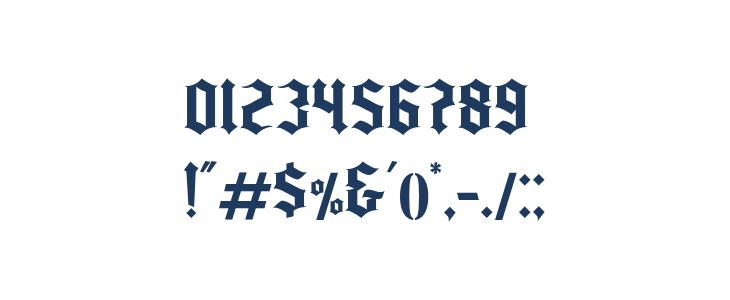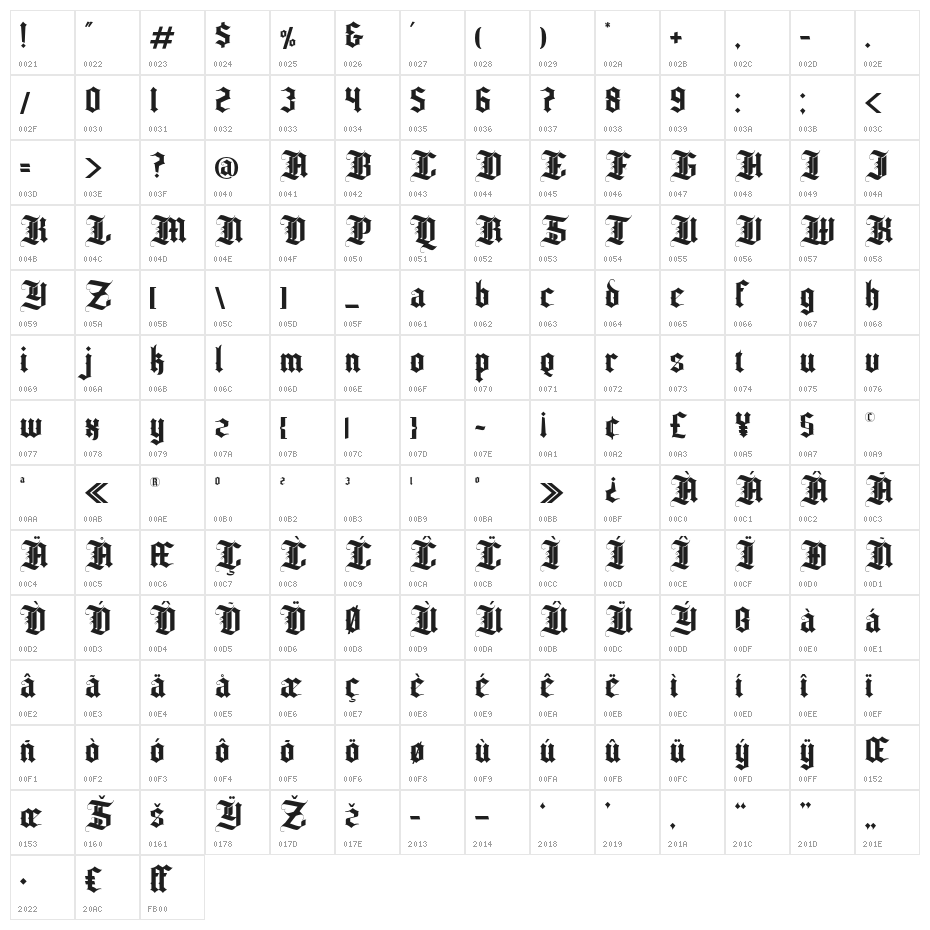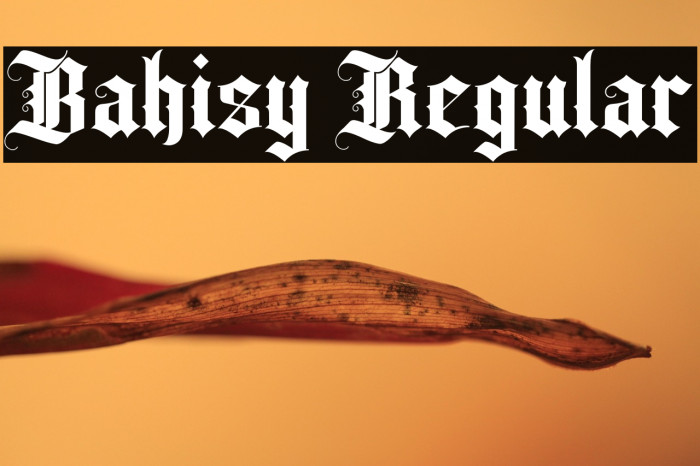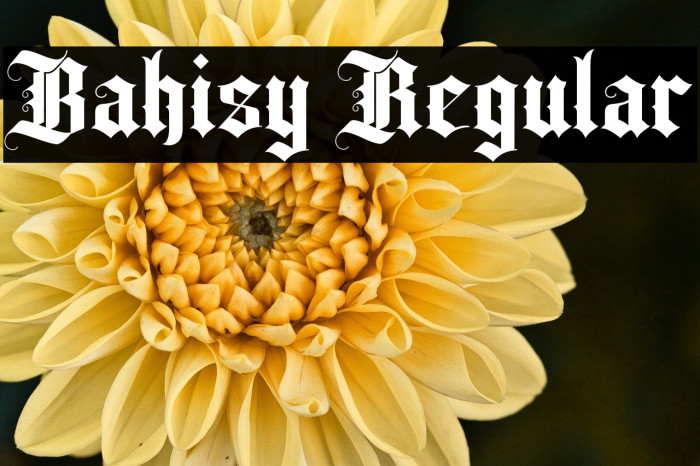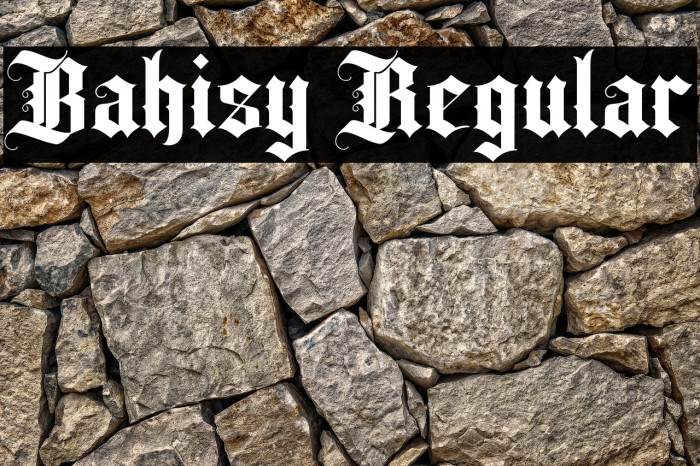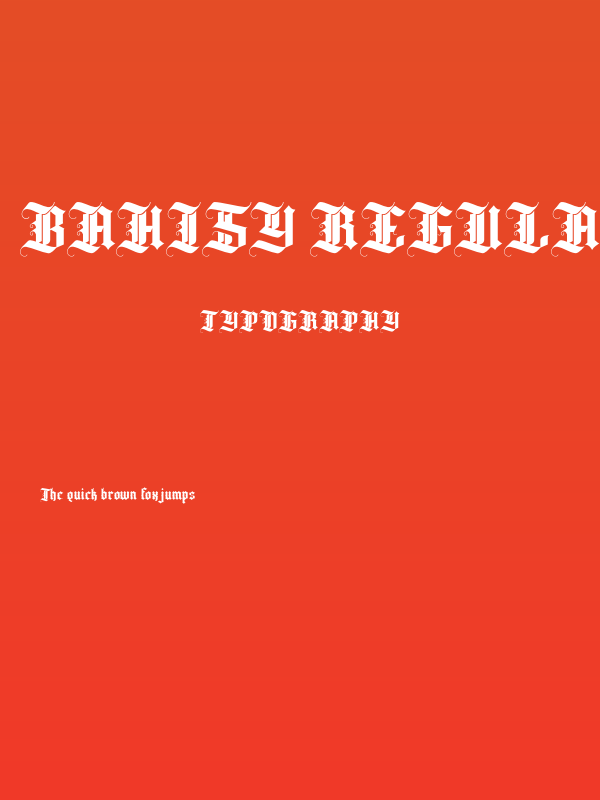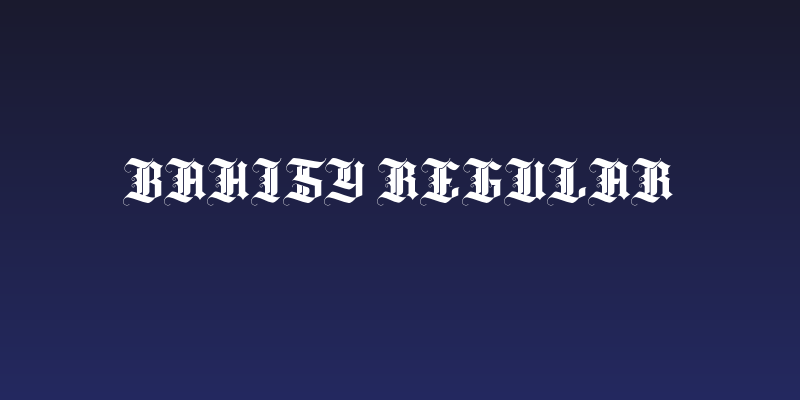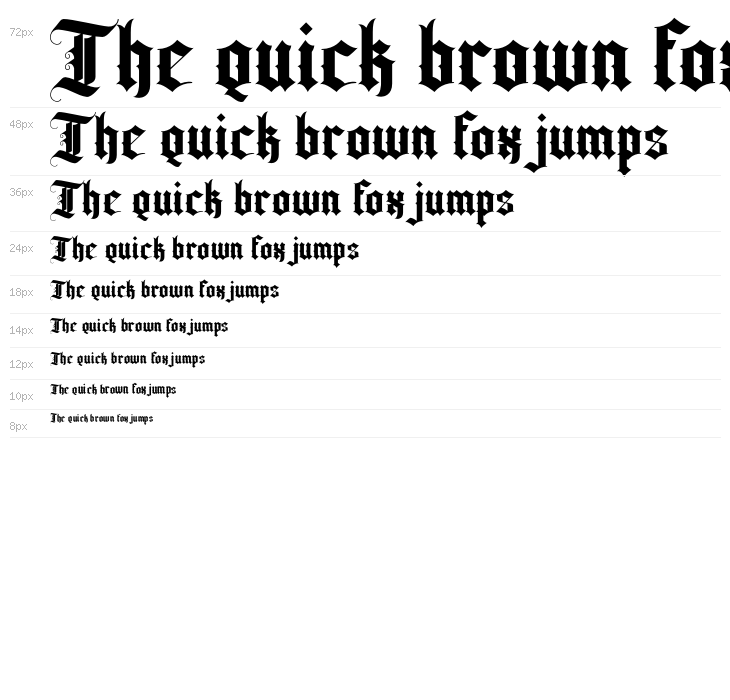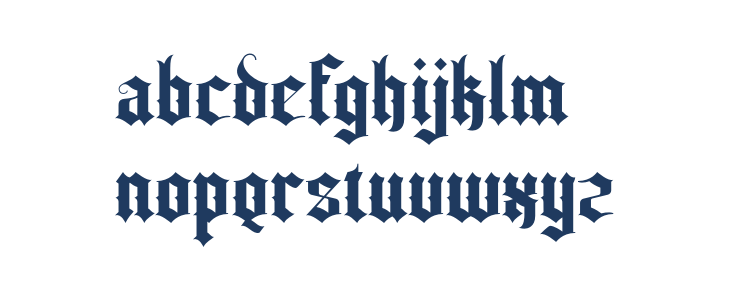
Bahisy Regular Font
Bahisy Regular Description
This font exhibits a traditional blackletter style, characterized by its intricate and ornate design. The letters are bold and angular, with sharp edges and decorative flourishes that give it a medieval appearance. The uppercase letters are particularly elaborate, featuring additional embellishments that enhance their gothic aesthetic. The lowercase letters maintain a consistent style, with a strong emphasis on vertical strokes and pointed serifs. Numbers and special characters are designed to match the overall theme, ensuring a cohesive look across all glyphs. This font is ideal for projects that require a historical or dramatic flair, such as event posters, book covers, or branding for products that wish to evoke a sense of tradition and craftsmanship.
| Overall Style | Vintage |
| Proposed Projects | Ideal for historical-themed designs, gothic event posters, book covers, and traditional branding. |